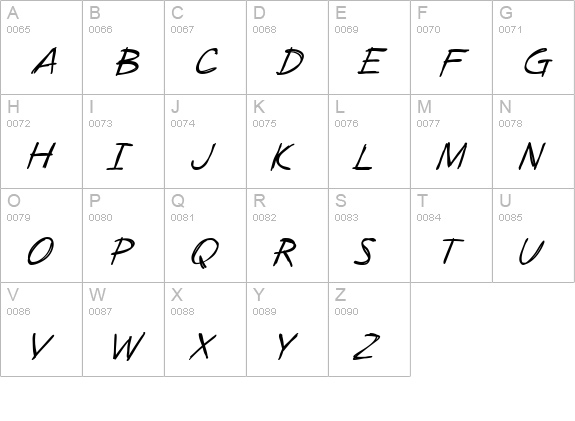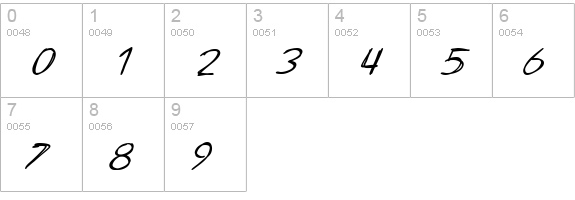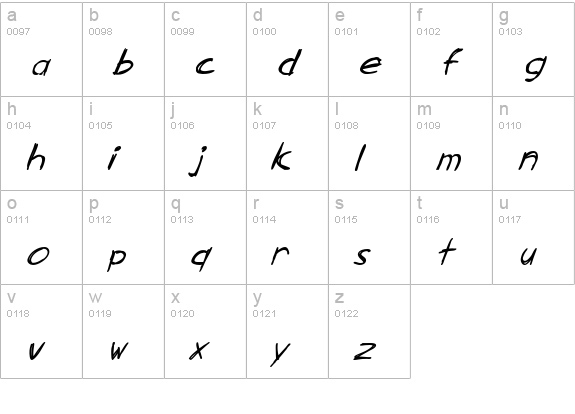
SF Zimmerman Italic Font Details
SF Zimmerman Italic is a distinctive, italic variant in the SF typeface family \xE2\x80\x94 well suited to design and typography projects.
SF Zimmerman Italic is a stunning font that effortlessly combines elegance with a touch of modernity. Its refined and graceful curves give any text a sophisticated and stylish appearance, making it perfect for a wide range of design projects. This font exudes a sense of professionalism and creativity, making it ideal for corporate branding, advertising materials, logos, and more. With its italicized form, SF Zimmerman Italic adds a subtle flair to any text, capturing attention and conveying a sense of uniqueness. One of the most impressive features of SF Zimmerman Italic is that it is available for free download at FontsMarket.com. This means that designers, creatives, and enthusiasts can easily access this exceptional font without any cost. Whether you are a professional designer or just starting out on your creative journey, SF Zimmerman Italic is a valuable addition to your font collection. With its wide range of applications, SF Zimmerman Italic is a versatile font that can be used in various design projects. From magazine layouts to website headers, this font adds a touch of sophistication and refinement. Its legibility and readability ensure that your message is conveyed effortlessly, while its unique style sets your design apart from the rest. SF Zimmerman Italic is the perfect choice for those who seek a font that is both visually appealing and freely accessible. Download it today from FontsMarket.com, and elevate your designs to new heights with this remarkable typeface.